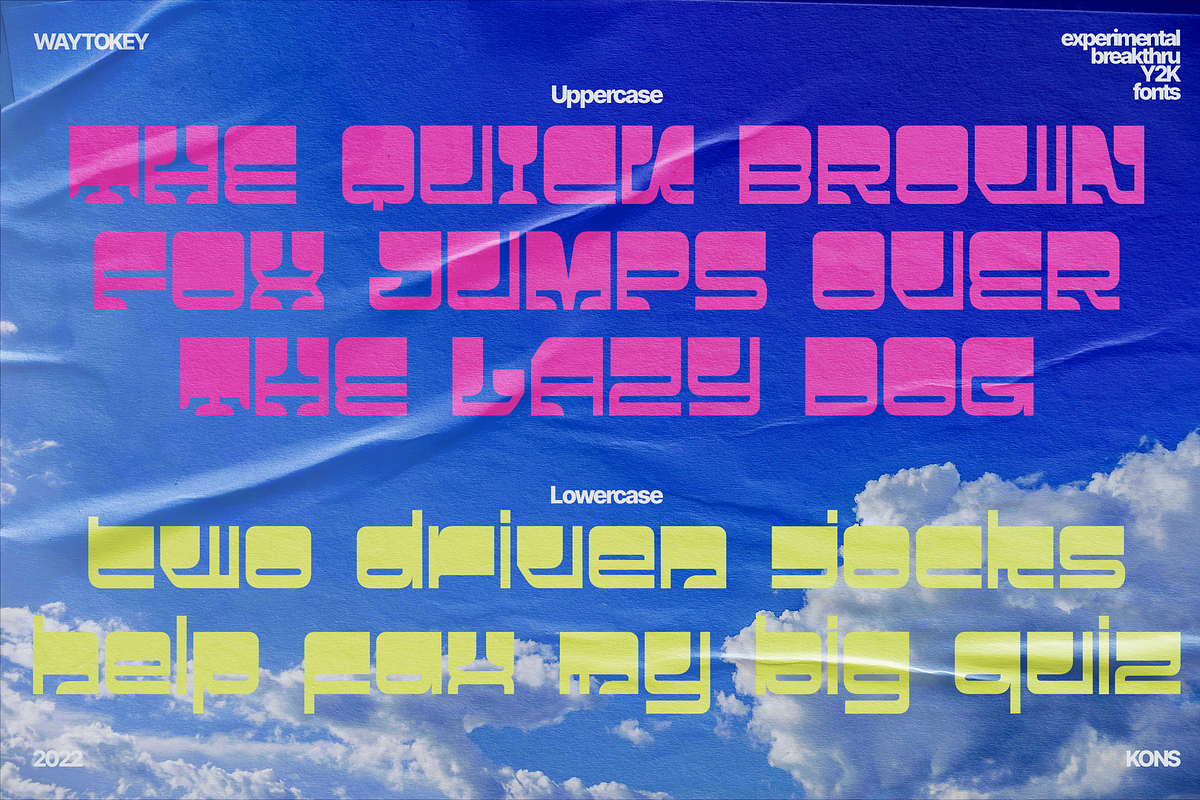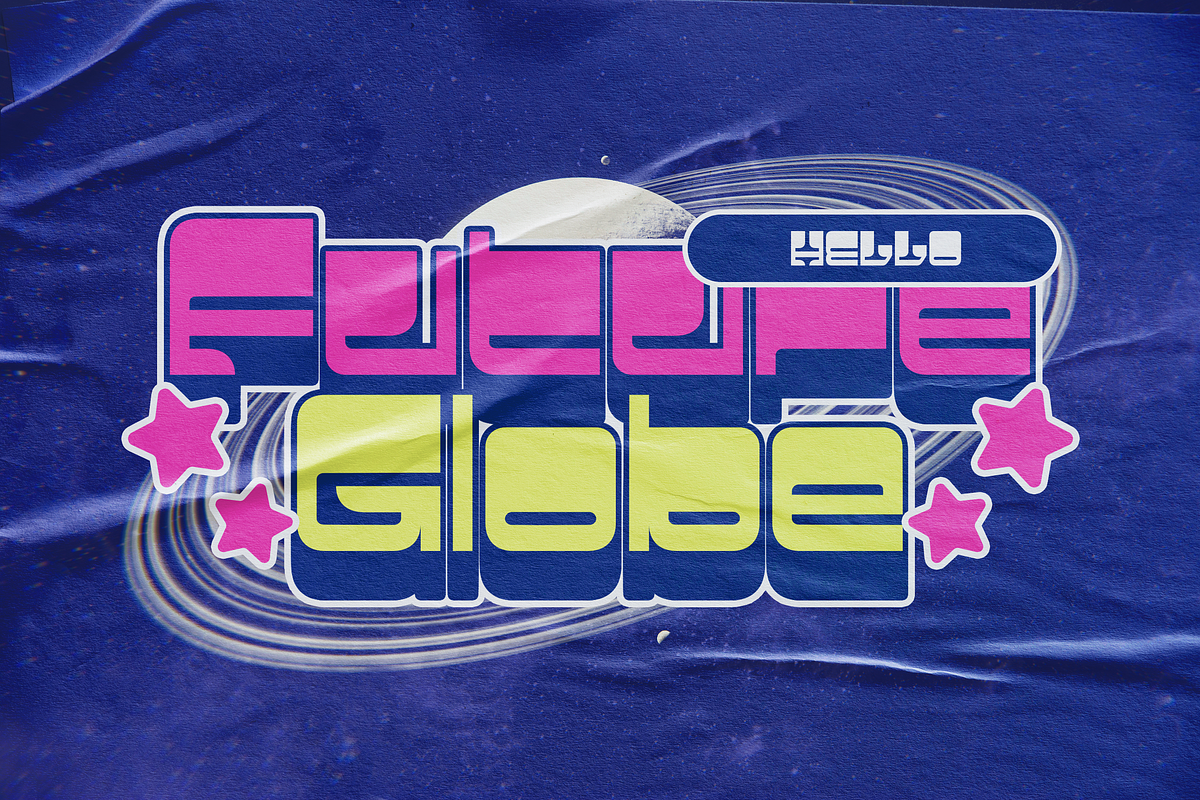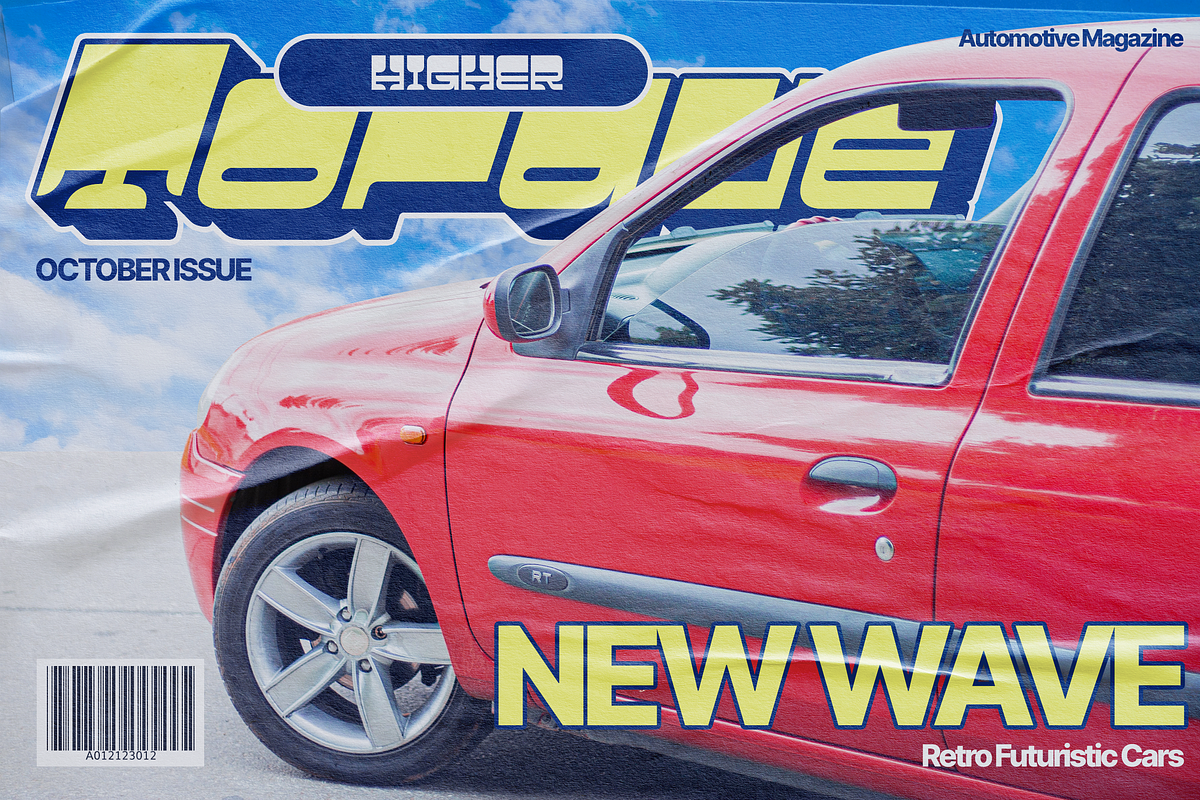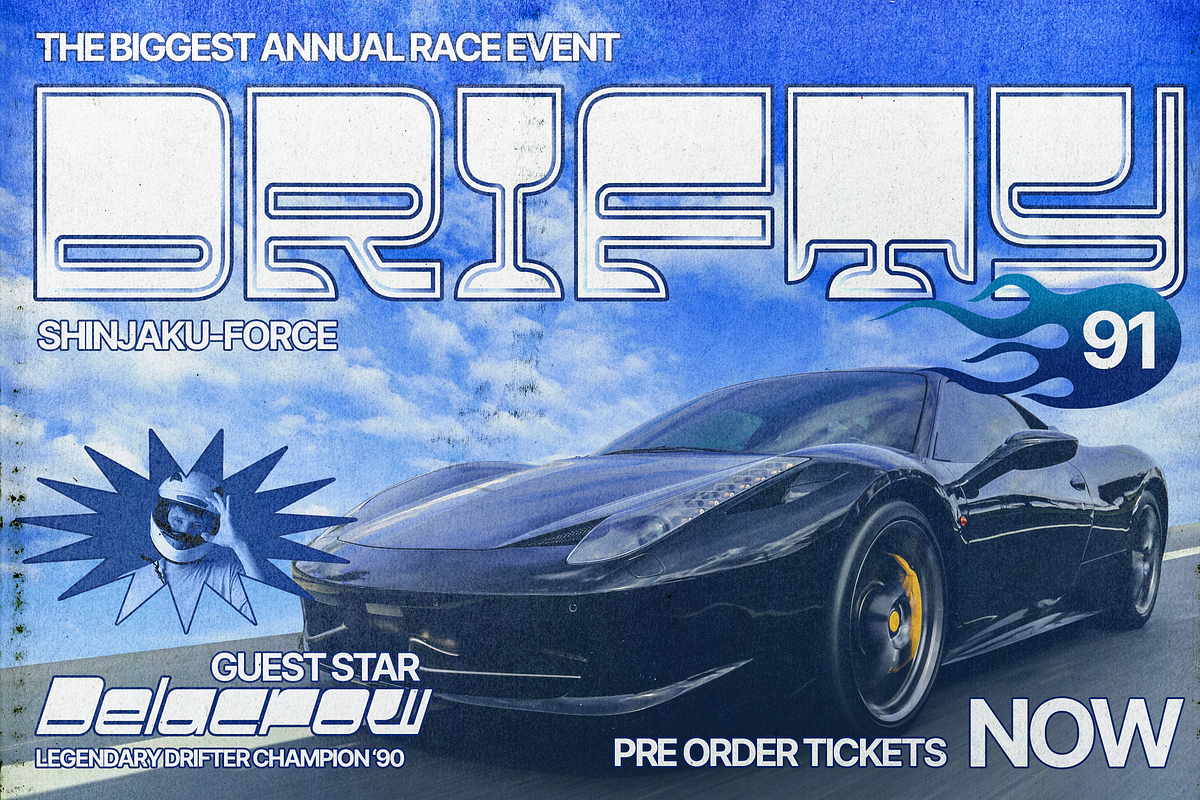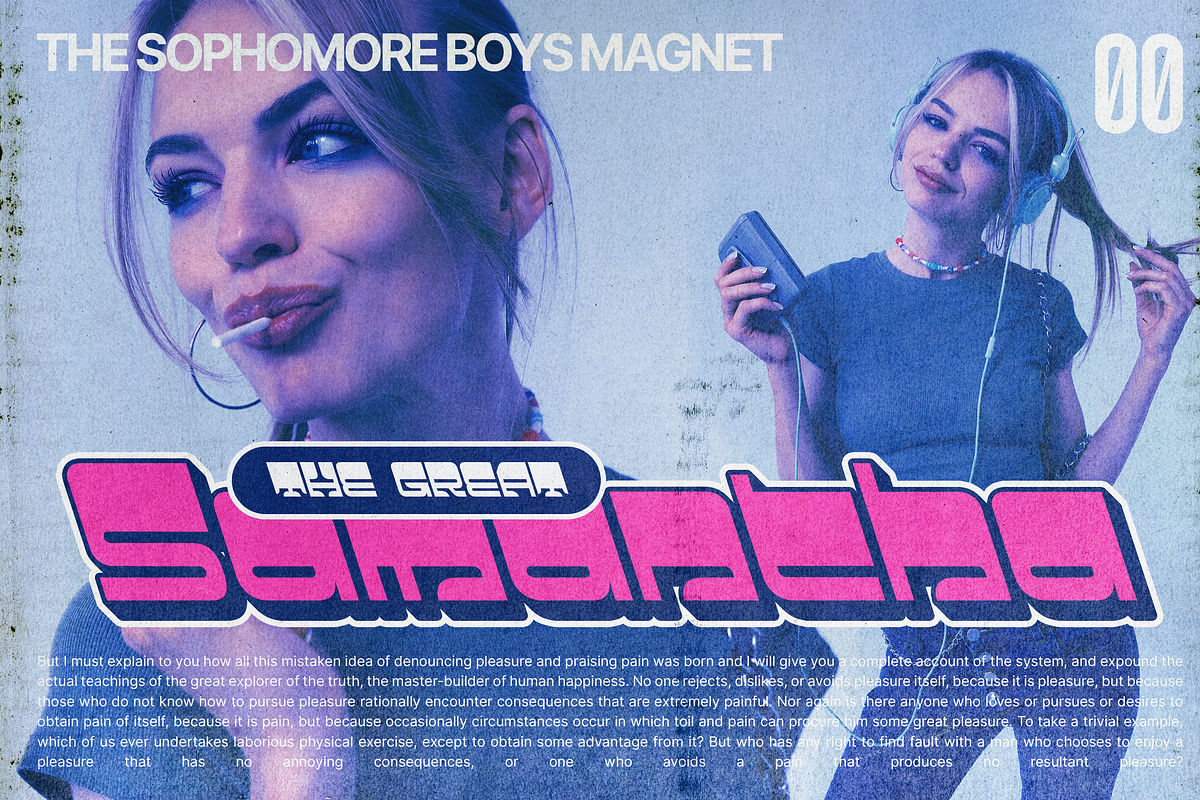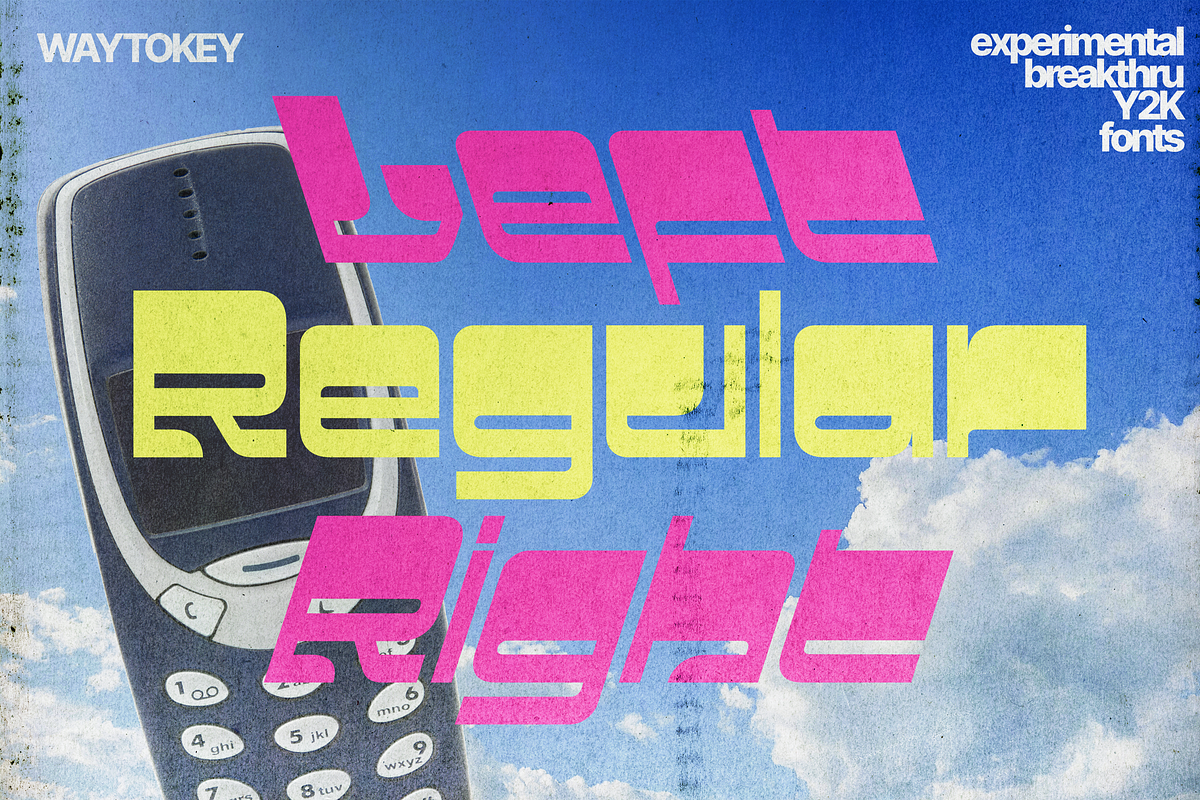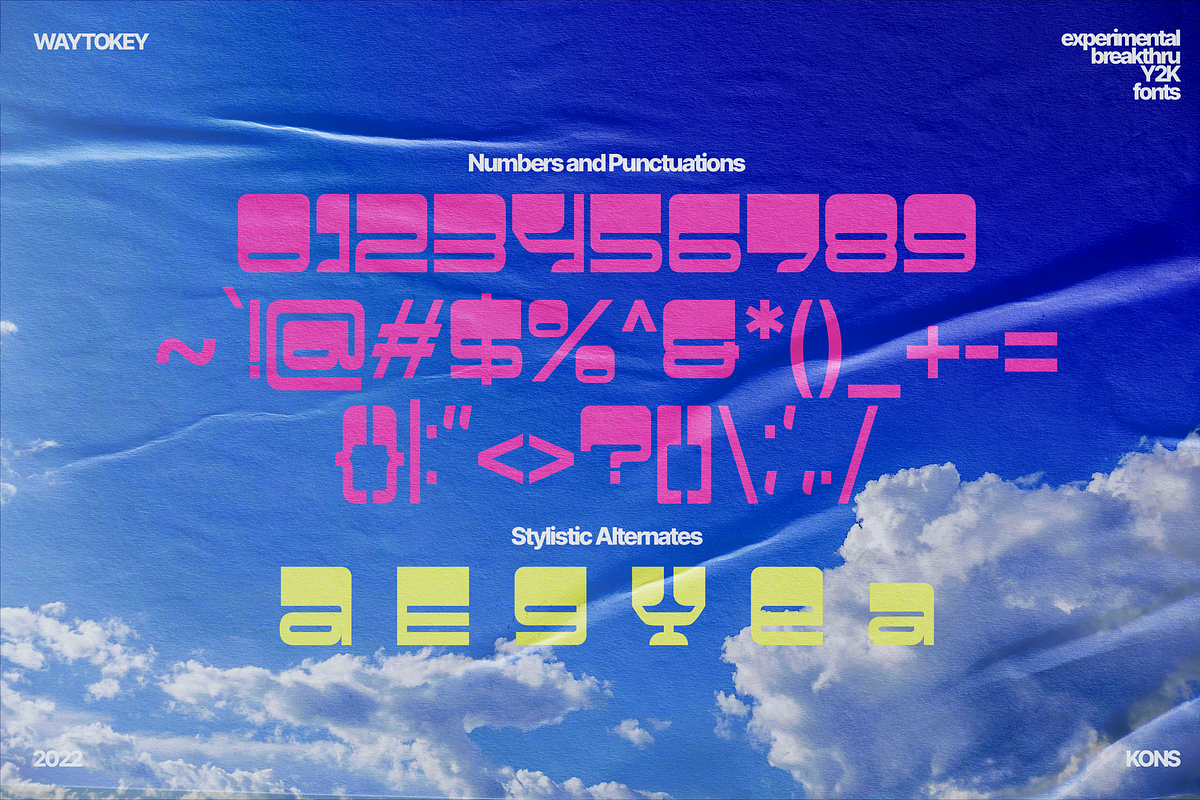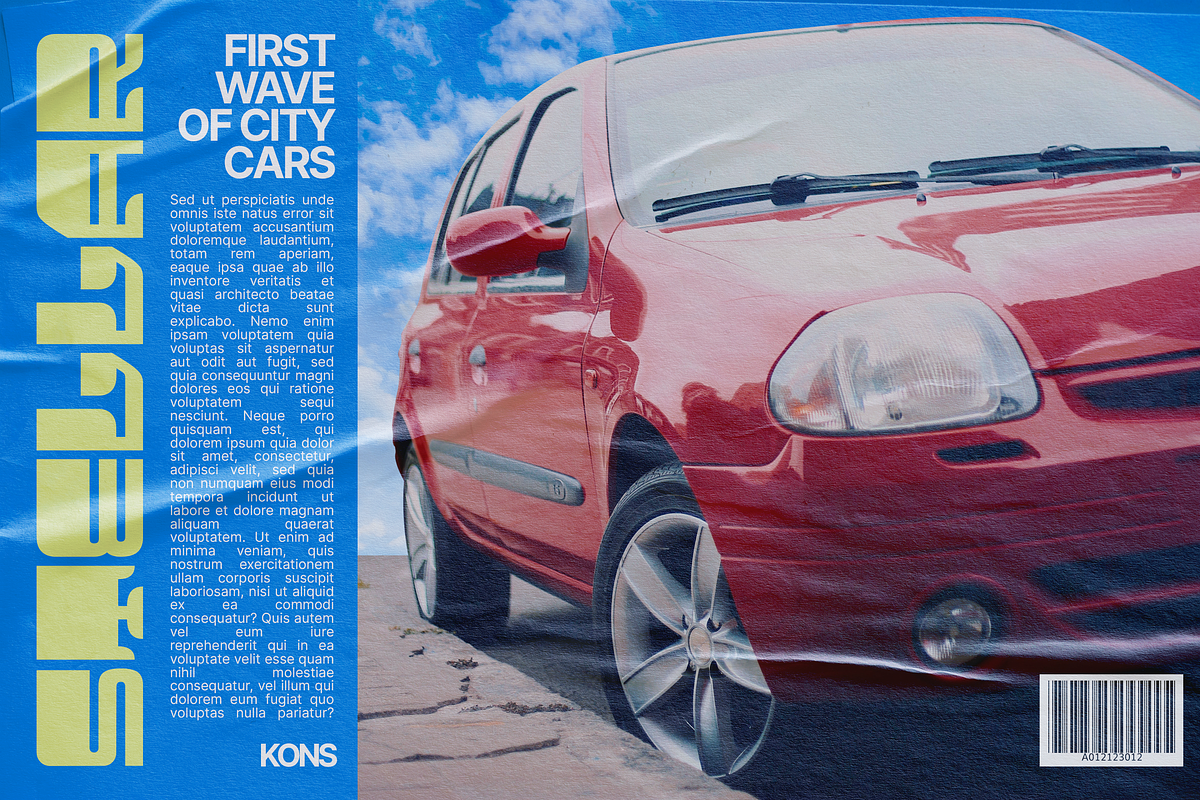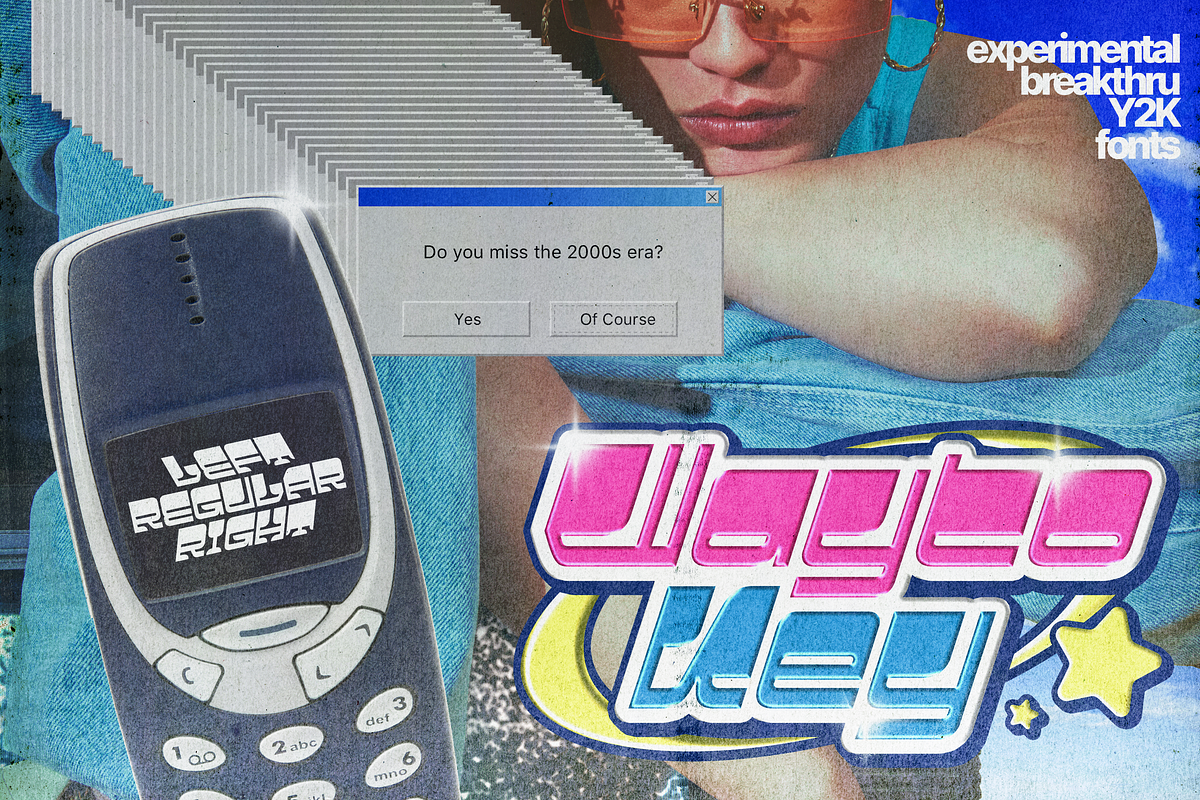
Waytokey - Y2K Fonts
Embracing the new wave of Y2K trend invasion in every slice of the industry, we always came up prepared. So that's why, Waytokey couldn't hold itself to be born, right here, right now.
Waytokey is a font inspired by the boom of the Y2K era in the past. A specific moment when we celebrated the colorful, bold, loud, and experimental edge of visuals back in the day.
Contains 3 styles. Italic Left, Regular, and Italic Right. To cover the specific needs to be versatile in different occasions.
Perfectly fit for logo, branding, music project, music video, album artwork, cover, fashion, game, esport branding, streaming overlay, poster, graphic design, and many more.